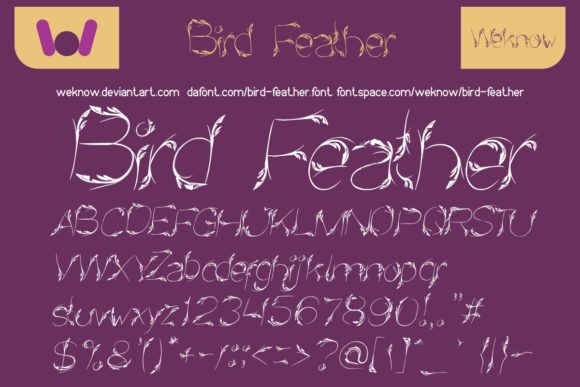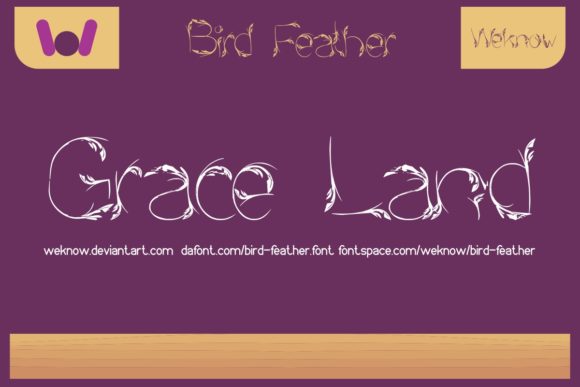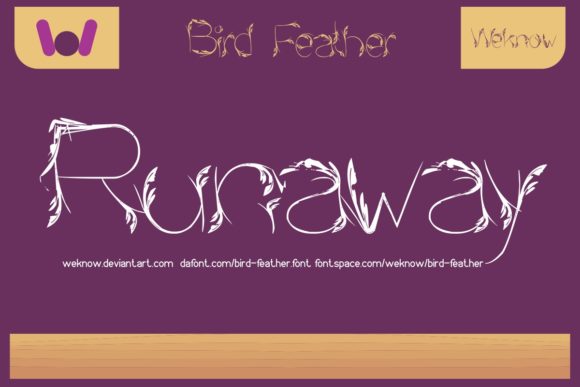
Getting Creative with a Touch of Nature
Have you ever found yourself gazing at a bird’s wings, mesmerized by the intricate patterns and delicate curves of its feathers? That’s exactly where the inspiration for the Bird Feather Font came from – a desire to capture the beauty and elegance of the natural world in a font.
Bird Feather Font is a decorative, hand-drawn typeface designed to add a touch of whimsy and sophistication to any design project. With its flowing, organic swashes and natural curves, it’s the perfect choice for designers looking to create unique and eye-catching visual elements.
Whether you’re working on a branding project, a wedding invitation, or a packaging design, Bird Feather Font is a valuable addition to your toolkit. Its versatility and charm make it a go-to choice for designers who want to elevate their designs and stand out from the crowd.
Bird Feather Font Key Features
- Font Family: Bird Feather Font is a unique, handwritten font designed to resemble bird feathers.
- Character Count: Includes over 300 characters, including uppercase and lowercase letters, numbers, and punctuation marks.
- Unique Characteristics: Features a natural, organic feel with subtle texture and variation, giving it a unique and hand-drawn appearance.
Bird Feather Font Review
Overall, I found the Bird Feather Font to be a unique and eye-catching addition to any design project. ✨ The font’s hand-drawn, organic feel immediately grabs the viewer’s attention and adds a touch of whimsy to any text.
- ✨ Unique and distinctive design: Bird Feather Font stands out from more traditional fonts and adds a personal touch to any project.
- ✨ Versatile: The font works well in a variety of contexts, from children’s books to advertising and branding.
- ✨ High-quality: The font is well-crafted and shows attention to detail, making it a great choice for designers who want a high-end look.
While the Bird Feather Font is certainly a standout, there are a few limitations to consider: ⚠️
- ⚠️ Limited legibility: The font’s organic design can make it difficult to read at smaller sizes or in low-light conditions.
Overall, I would recommend the Bird Feather Font for designers who are looking for a unique and eye-catching font to add a touch of personality to their projects. While it may have some limitations, its high-quality design and versatility make it a great choice for many applications.
The Bird Feather font is ideal for creating whimsical and playful designs, such as:
- Children’s book covers
- Party invitations
- Wedding stationery
- Food labels
The Great Vibes Font is a beautiful, elegant script font that is perfect for creating a whimsical and romantic atmosphere. It is ideal for wedding invitations, wedding stationery, and other special occasions. The Great Vibes Font is more elegant and sophisticated than the Bird Feather Font, which has a more playful and whimsical feel.
The Carolyna Pro Font is a modern script font that is great for creating a luxurious and high-end look. It is perfect for branding, logos, and other design elements where a touch of sophistication is needed. The Carolyna Pro Font is more refined and polished than the Bird Feather Font, which has a more rustic and natural feel.
The Alex Brush Font is a elegant and sophisticated script font that is perfect for creating a warm and inviting atmosphere. It is ideal for packaging, labels, and other design elements where a touch of elegance is needed. The Alex Brush Font is more delicate and refined than the Bird Feather Font, which has a more bold and playful feel.